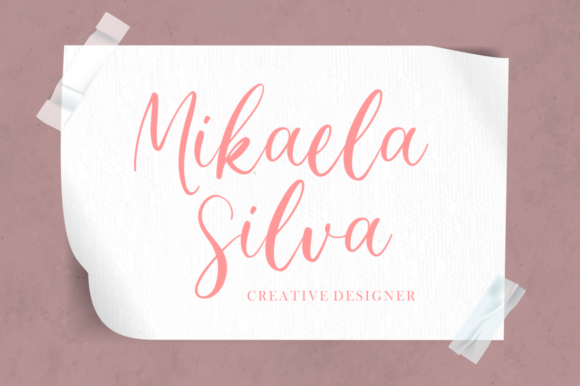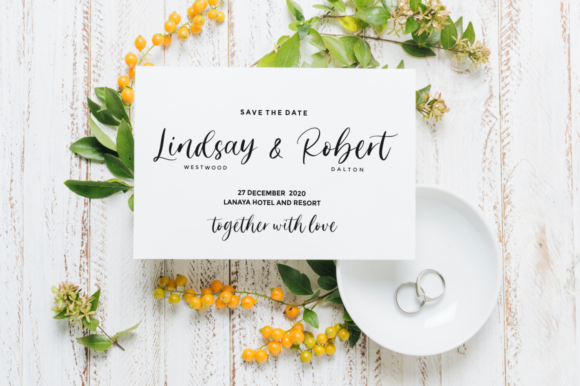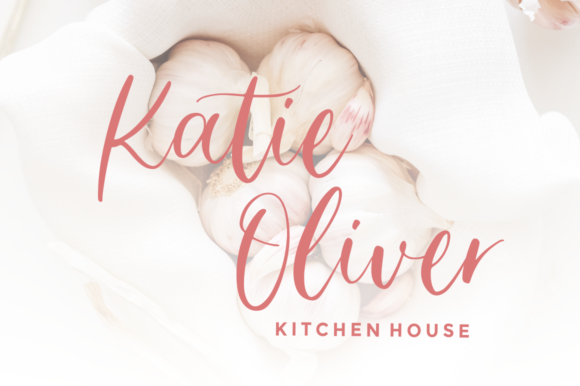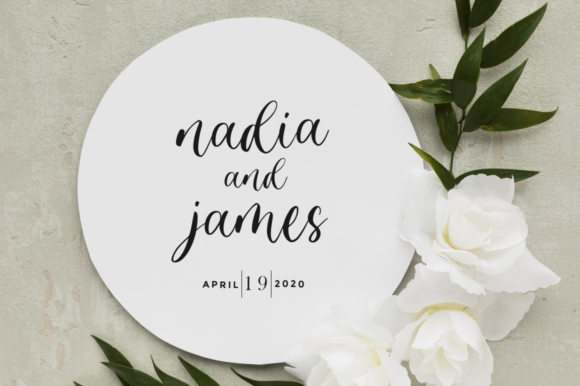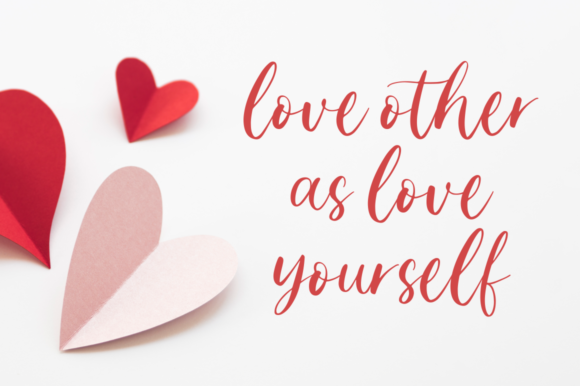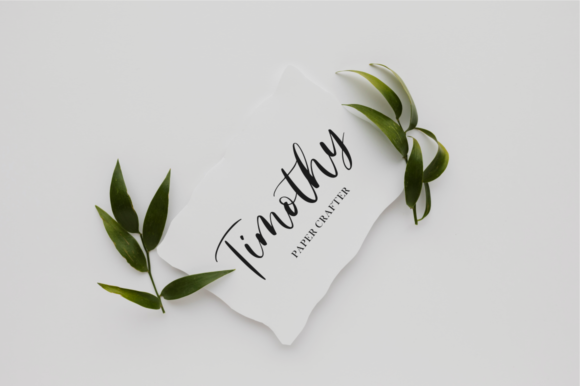
Introducing Angela Dream Font: A Magical Script Font for Elegant Designs
Are you a designer or crafter looking for a font that exudes timeless elegance and authentic calligraphy? Look no further than Angela Dream Font. This beautiful script font is carefully crafted with a touch of elegance, making it perfect for creating original and outstanding designs. In this article, we’ll dive deeper into the features and benefits of Angela Dream Font, and explore how it can elevate your design projects.
A Classic Style with a Friendly Feel
Angela Dream Font boasts an incredibly classic style, reminiscent of traditional calligraphy. Its elegant strokes and curves evoke a sense of sophistication and refinement, making it ideal for designs that require a touch of luxury. However, what sets Angela Dream apart from other script fonts is its friendly feel. The font’s gentle curves and flowing lines create a sense of approachability, making it perfect for designs that need to convey warmth and personality.
A Beautiful Combination of Timeless Elegance and Authentic Calligraphy
Angela Dream Font is a masterful blend of timeless elegance and authentic calligraphy. The font’s design is inspired by traditional calligraphy, with intricate strokes and flourishes that give it a sense of authenticity. At the same time, the font’s classic style ensures that it remains timeless, unaffected by fleeting design trends. This combination makes Angela Dream Font an excellent choice for designers and crafters who want to create designs that are both elegant and enduring.
Perfect for Creating Original and Outstanding Designs
Angela Dream Font is the perfect tool for designers and crafters who want to create original and outstanding designs. Its unique blend of classic style and friendly feel makes it an excellent choice for a wide range of design projects, from wedding invitations and branding materials to digital graphics and crafts. With Angela Dream Font, you can add a touch of elegance and sophistication to your designs, setting them apart from the ordinary and making them truly unforgettable.
Key Features of Angela Dream Font
- Magical script font: Angela Dream Font is a beautiful script font that is sure to add a touch of magic to your designs.
- Timeless elegance: The font’s classic style ensures that it remains timeless, unaffected by fleeting design trends.
- Authentic calligraphy: Angela Dream Font is inspired by traditional calligraphy, with intricate strokes and flourishes that give it a sense of authenticity.
- Friendly feel: The font’s gentle curves and flowing lines create a sense of approachability, making it perfect for designs that need to convey warmth and personality.
- Perfect for designs: Angela Dream Font is ideal for a wide range of design projects, from wedding invitations and branding materials to digital graphics and crafts.
Tips for Using Angela Dream Font
Here are a few tips for using Angela Dream Font in your designs:
- Pair with contrasting fonts: Angela Dream Font pairs beautifully with contrasting fonts, such as bold sans-serif fonts or elegant serif fonts.
- Use for headlines and titles: The font’s elegant style makes it perfect for headlines and titles, adding a touch of sophistication to your designs.
- Experiment with colors: Angela Dream Font looks stunning in a range of colors, from metallic ink to pastel hues.
In conclusion, Angela Dream Font is a magical script font that is sure to add a touch of elegance and sophistication to your designs. Its timeless elegance, authentic calligraphy, and friendly feel make it perfect for creating original and outstanding designs. Whether you’re a designer or crafter, Angela Dream Font is an excellent choice for a wide range of design projects. So why wait? Download Angela Dream Font today and start creating your own magical designs!